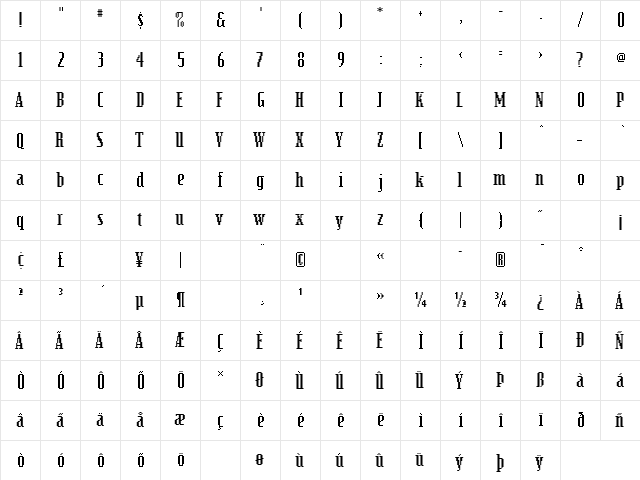
EmigreFifTeen Regular
Design Context for EmigreFifTeen Typeface
EmigreFifTeen offers clean, dependable letterforms without strong stylistic allegiance, making it a practical choice for designers who need flexibility.